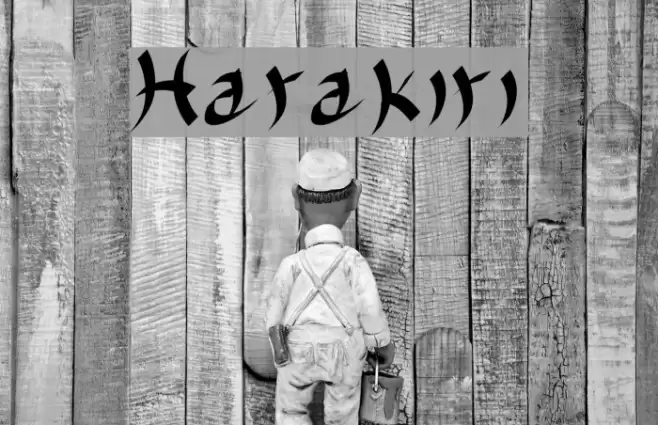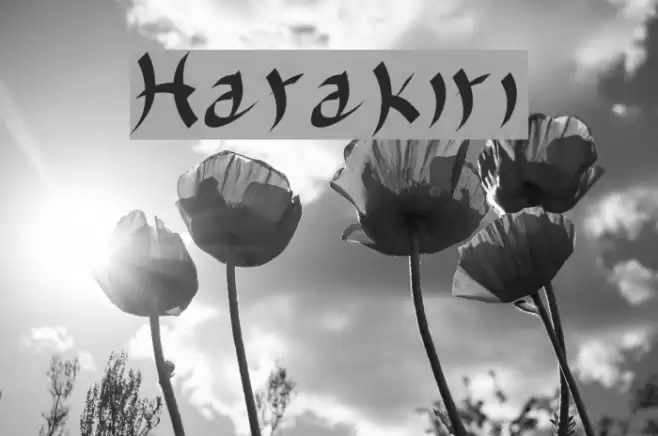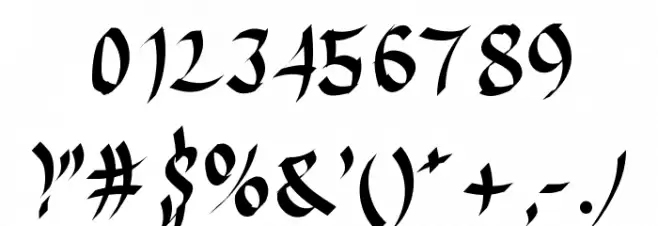
Harakiri Font
Harakiri Description
This font features a bold, dramatic style with sharp, angular strokes that evoke a sense of movement and intensity. The characters are highly stylized, with exaggerated curves and pointed edges, creating a dynamic and aggressive appearance. The uppercase and lowercase letters maintain a consistent design, while the numbers and special characters complement the overall aesthetic. The font's unique flair makes it stand out, suitable for projects that require a strong visual impact.
A bold, dramatic font with sharp, angular strokes and a dynamic style from Uncategorized fonts.
- Proposed Projects: Ideal for movie posters, album covers, video game titles, and branding that requires a strong, impactful presence.
- Overall Style: Modern, Decorative